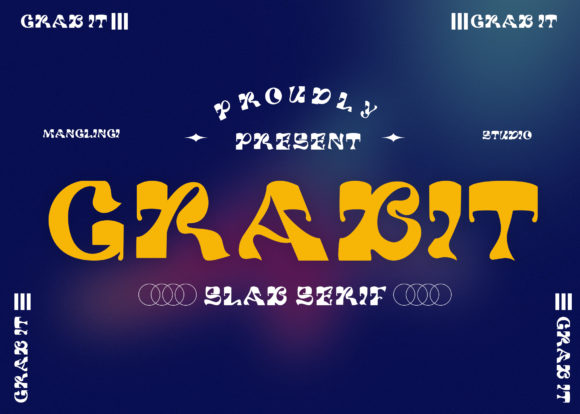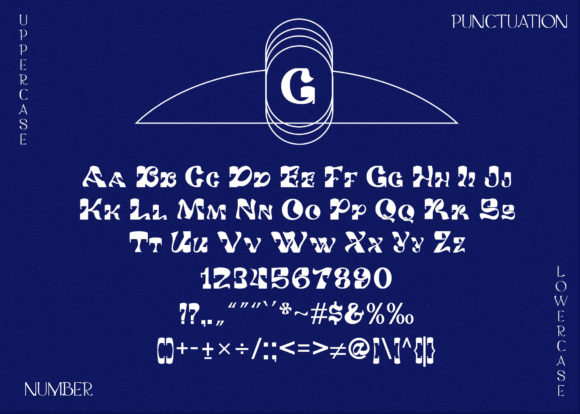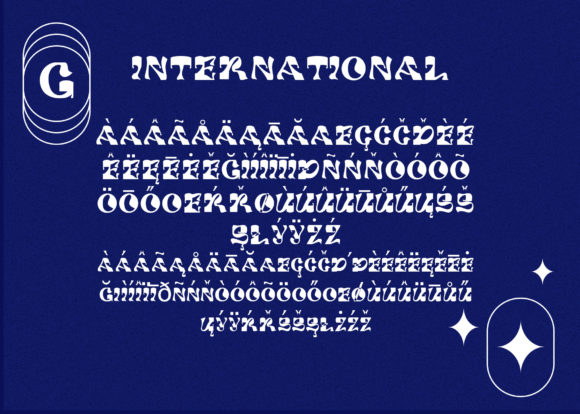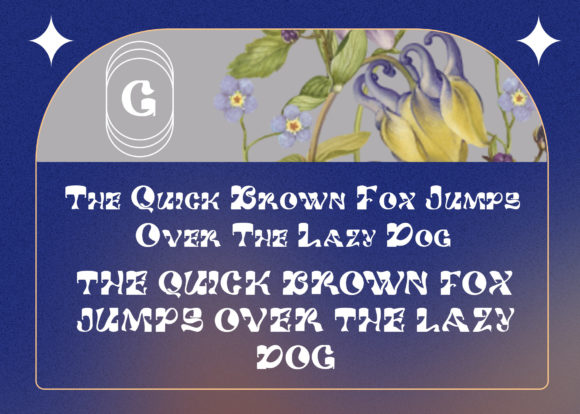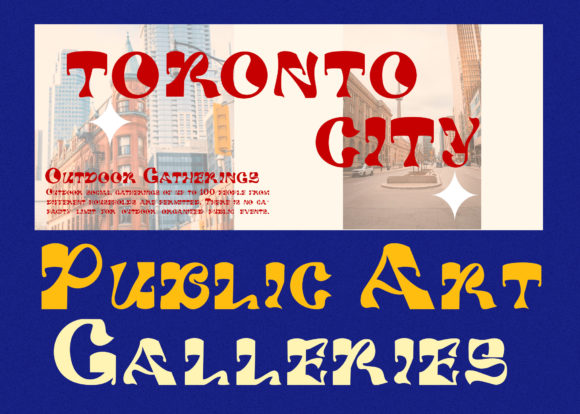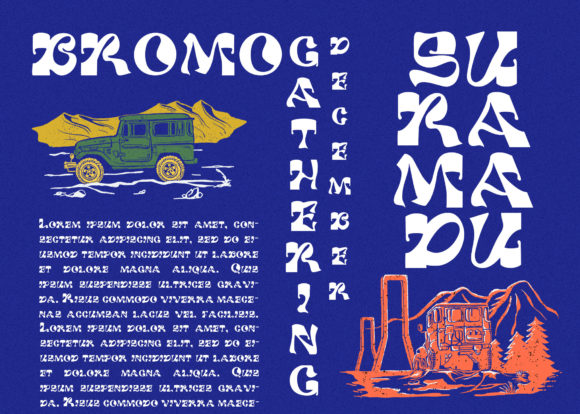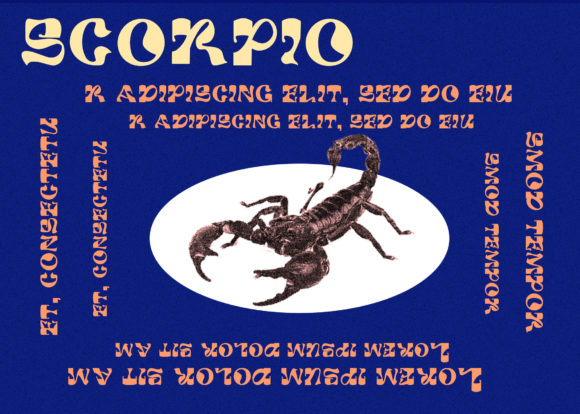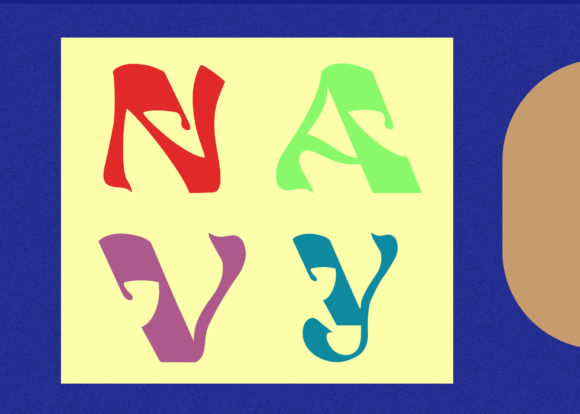
Grabit Font
GRABIT FONT SPECIMEN
Introducing Grabit, a bold and creative slab serif font that injects a sense of fun and invitation into your designs. With its striking presence, Grabit is the perfect choice for creating designs that are captivating and engaging. When you add Grabit to your favorite creations, you’ll witness the confidence it brings and be amazed by the outstanding results.
Grabit’s bold and creative design sets it apart as a font that demands attention. Its strong letterforms and unique details make it stand out from the crowd, instantly grabbing the viewer’s gaze. Whether used for headlines, logos, or any other design element, Grabit adds a touch of energy and excitement that draws people in.
One of the key strengths of Grabit is its ability to create a fun and inviting atmosphere. The font’s boldness and creativity lend themselves well to projects that require a playful and lively aesthetic. Whether you’re designing party invitations, event posters, children’s books, or any other design with a joyful vibe, Grabit adds a sense of fun and enthusiasm that captivates audiences.
By incorporating Grabit into your designs, you infuse them with confidence. The font’s bold presence and creative flair instill a sense of assurance, making your creations truly stand out. Whether it’s on websites, social media graphics, packaging, or any other medium, Grabit brings a level of excitement and confidence that elevates your designs to new heights.
Grabit’s versatility allows it to adapt to various design styles and concepts. It works well in both modern and retro-inspired designs, adding a touch of creativity and flair. From vintage-themed projects to contemporary and edgy designs, Grabit brings a sense of uniqueness and personality to your favorite creations.
In summary, Grabit is a bold and creative slab serif font that transforms your designs into captivating and inviting experiences. Its ability to add confidence and bring outstanding results makes it a perfect choice for a wide range of projects. Embrace Grabit and witness how it elevates your favorite creations with its energy and boldness.